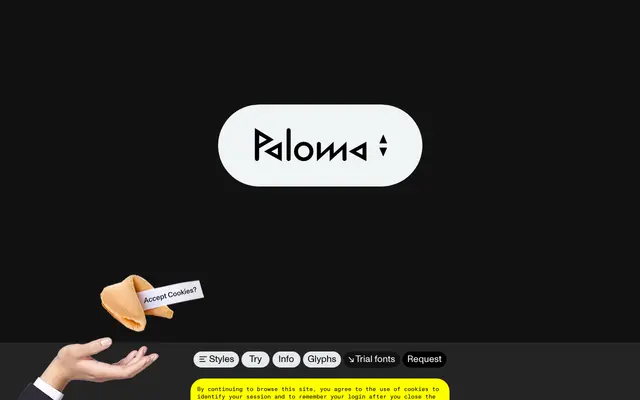
ABC Paloma
Dinamo Typefaces · Dinamo (Fabian Harb, Sascha Bente, Jovana Jocic) · 2021
A constructivist geometric sans drawn from triangle, circle and square, extending Bayer, Tschichold and Max Bill's avant-garde alphabets across seven weights.
A geometric sans by Dinamo (Fabian Harb, Sascha Bente, Jovana Jocic) that translates the most basic shapes of triangle, circle and square into legible letterforms. First drawn in 2021 for the visual identity of Bikini Books, it now spans seven weights from Thin to Ultra. Dinamo cite Herbert Bayer's Universal Type (1925), Jan Tschichold's Single Alphabet (1929) and Max Bill's Konkrete Kunst (Kunsthalle Basel, 1949) as references. Optically optimised with 33,753 kerning pairs and supporting 97 Latin-based languages, it suits identity work that wants modernist rigour without slipping into pastiche.
Dinamo describe Paloma as translating triangle, circle and square into legible letterforms, deriving from avant-garde constructivist alphabets by Herbert Bayer (Universal Type, 1925), Jan Tschichold (Single Alphabet, 1929) and Max Bill (Konkrete Kunst, Kunsthalle Basel, 1949).